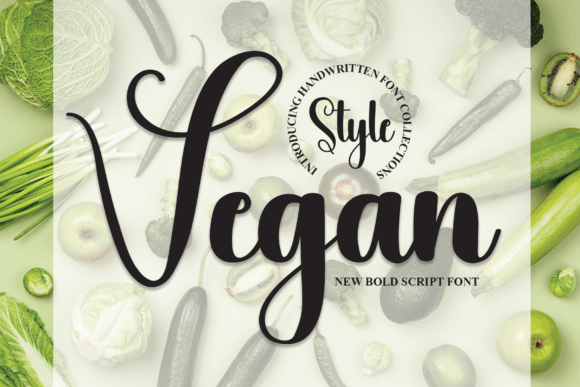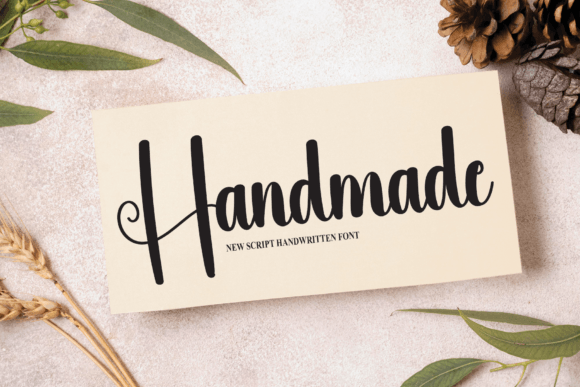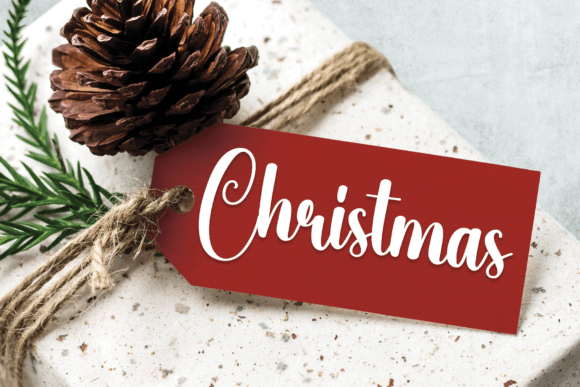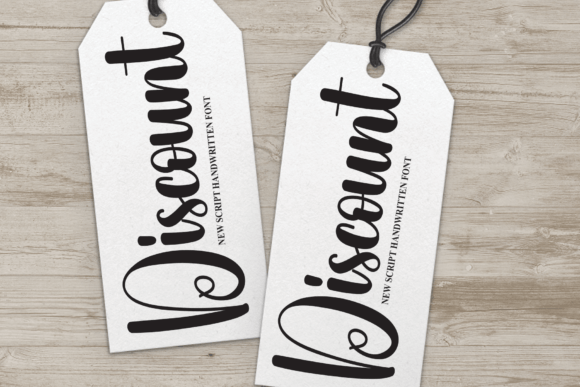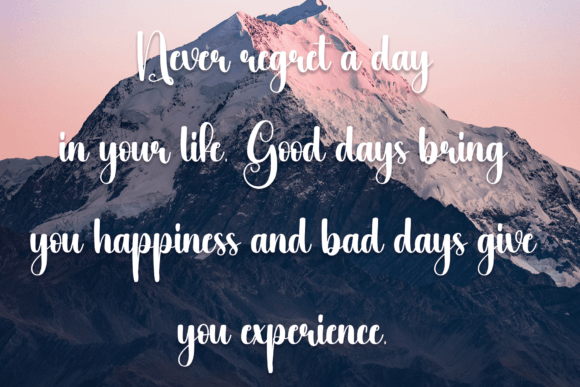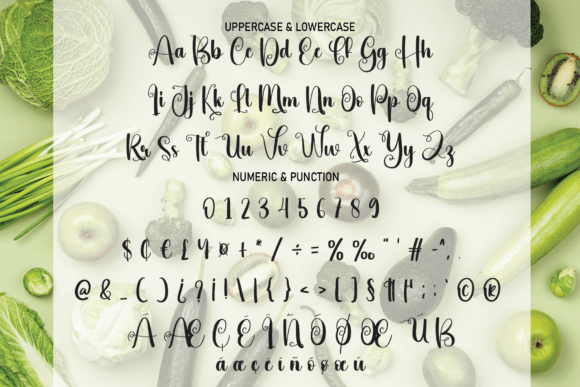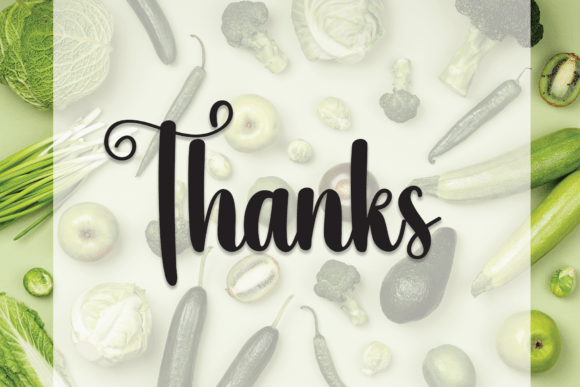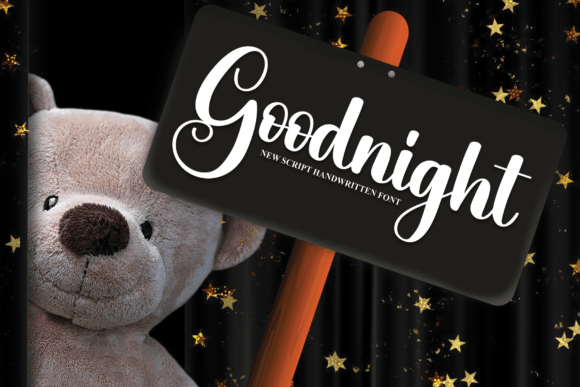
Vegan Font
Keep It Cool with Vegan Handwritten Font
The Vegan Handwritten Font is a fun, casual script typeface that brings personality and charm to your creative projects. Designed with a relaxed handwritten feel, it’s perfect for both everyday use and special moments. Whether you’re crafting, designing for digital platforms, or creating printed materials, Vegan adds a friendly and authentic vibe to your work.
Perfect for Crafts, Digital Projects, and Greeting Cards
Vegan is an excellent choice for DIY crafts, presentations, scrapbooks, and greeting card designs. Its clean yet expressive letterforms make it suitable for both personal and commercial projects. Use it to add a laid-back tone to logos, social media graphics, invitations, and product packaging.
Because of its casual and playful nature, Vegan is also perfect for seasonal events, blog titles, and quotes that need a personal touch. It’s the type of font that feels like a handwritten note from a friend—inviting, lighthearted, and easy to love.
A Casual Script That Feels Just Right
The beauty of the Vegan Handwritten Font lies in its balance between clarity and creativity. The letterforms are slightly bouncy and imperfect—just like real handwriting—which gives it warmth and originality. At the same time, it’s crafted for readability, so your message stays clear and impactful.
This font works especially well when you want to convey friendliness, simplicity, or a human touch without sacrificing professionalism.
Works Wonderfully in Print and Digital Formats
Whether you’re working on a printed project or a web-based design, Vegan maintains its charm and clarity. It scales nicely from small captions to large headlines, ensuring that your message stays legible and stylish across different platforms.
You can pair Vegan with clean sans-serif fonts for contrast, or use it on its own to add a cohesive, hand-drawn look throughout your layout. Either way, it gives your designs a fresh and approachable appearance.
Why Choose Vegan Handwritten Font?
Here are a few reasons designers love using Vegan:
• Relaxed and modern handwritten style
• Perfect for everyday crafts, cards, and digital content
• Works across multiple design formats and sizes
• Adds a casual, human touch to your typography
• Easy to read, fun to use, and highly versatile
Make Your Next Design Friendly and Fun
In summary, the Vegan Handwritten Font is a cool, casual script that’s ready to become your favorite go-to font. It brings creativity and charm to all kinds of projects, from personal notes and craft files to branding and blog visuals.
If you’re looking for a relaxed handwritten font that feels both stylish and approachable, Vegan is the perfect choice.